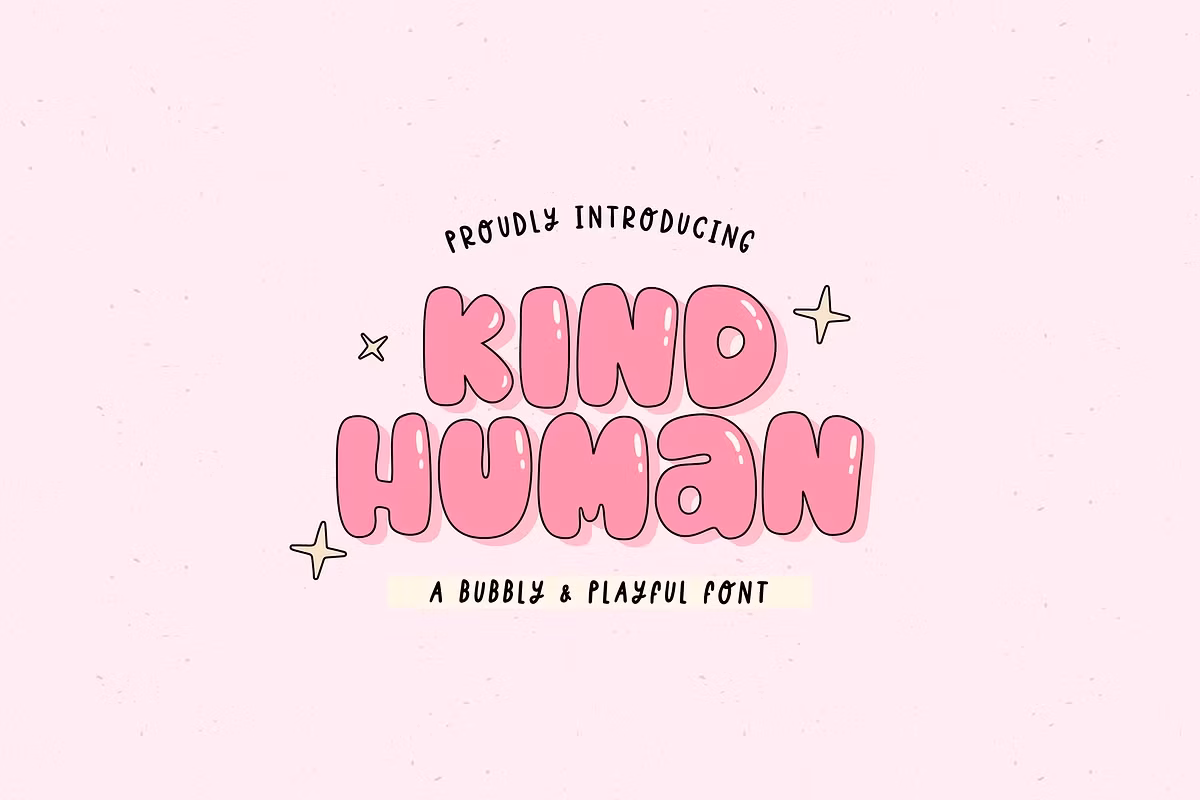
KIND HUMAN | Bubbly and Playful Font Free Download
You must purchase this font for commercial use. However, you can download KIND HUMAN | Bubbly and Playful Font Free Download for testing purposes. KIND HUMAN is a fun, lighthearted font that brings a sense of joy and playfulness to any design. Its rounded, bubbly letterforms and cheerful character make it perfect for children’s books, party invitations, social media posts, branding, and anything that requires a friendly, upbeat vibe.
This font is ideal for projects aimed at creating an inviting, warm atmosphere, whether it’s for a creative brand or a casual event. Its friendly aesthetic works well for both big, bold headlines and smaller, quirky accents in design. KIND HUMAN | Bubbly and Playful Font Free Download lets you experiment with this whimsical font before committing to commercial use.